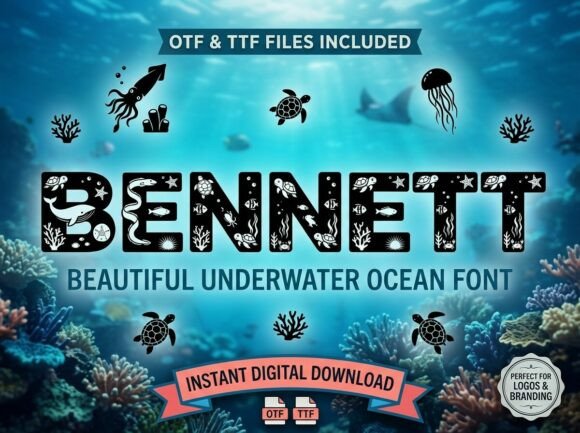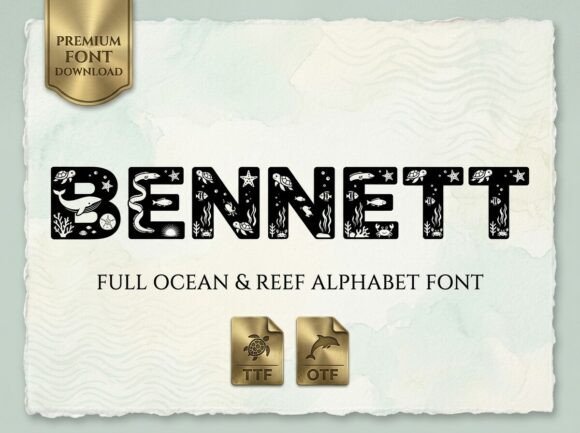
The Bennett Font: A Stunning Decorative Display Font to Elevate Your Designs
Have you ever been working on a project, pouring your heart and soul into it, and then suddenly realized that something’s missing? You’re not quite sure what it is, but you know it’s not quite right. For me, that something was often the perfect font. I’ve lost count of how many times I’ve scoured the internet for that one special typeface that would bring my design to life. And that’s exactly what happened when I stumbled upon the Bennett Font.
I was working on a logo design for a client who wanted something bold, artistic, and eye-catching. I tried font after font, but nothing seemed to fit the bill. That was until I discovered Bennett Font. Its unique artistic elements and strong visual personality immediately caught my attention. I knew right then and there that this was the font I had been searching for.
What I Love About Bennett Font
- ✨ Unique Artistic Elements: Bennett Font features stunning artistic elements that will make your designs stand out from the crowd.
- ✅ Strong Visual Personality: This font has a bold and confident personality that will elevate your designs and make them more engaging.
- 💼 Versatility: Bennett Font is perfect for a variety of design projects, including bold headlines, artistic logos, and creative packaging.
- 📚 Professional and Polished Finish: Despite its bold and artistic nature, Bennett Font maintains a professional and polished finish that’s perfect for clients and personal projects alike.
⚠️ One thing to note about Bennett Font is that it’s an ALL-CAPS (Uppercase Only) display typeface. This means it doesn’t include lowercase letters, which might be a limitation for some designers. However, this also means that every letter is a work of art, making it perfect for high-impact headlines, logos, and decorative initials.
The Story Behind Bennett Font
Bennett Font was designed by a team of creatives who wanted to create a unique and eye-catching display font. Inspired by the art of typography and the world of design, they set out to create a font that would stand out from the crowd. With its bold and artistic personality, Bennett Font is the perfect addition to any design project.
Q: Is Bennett Font suitable for body text?
A: No, Bennett Font is a display font designed for headlines, logos, and decorative initials. It’s not suitable for body text due to its bold and artistic nature.